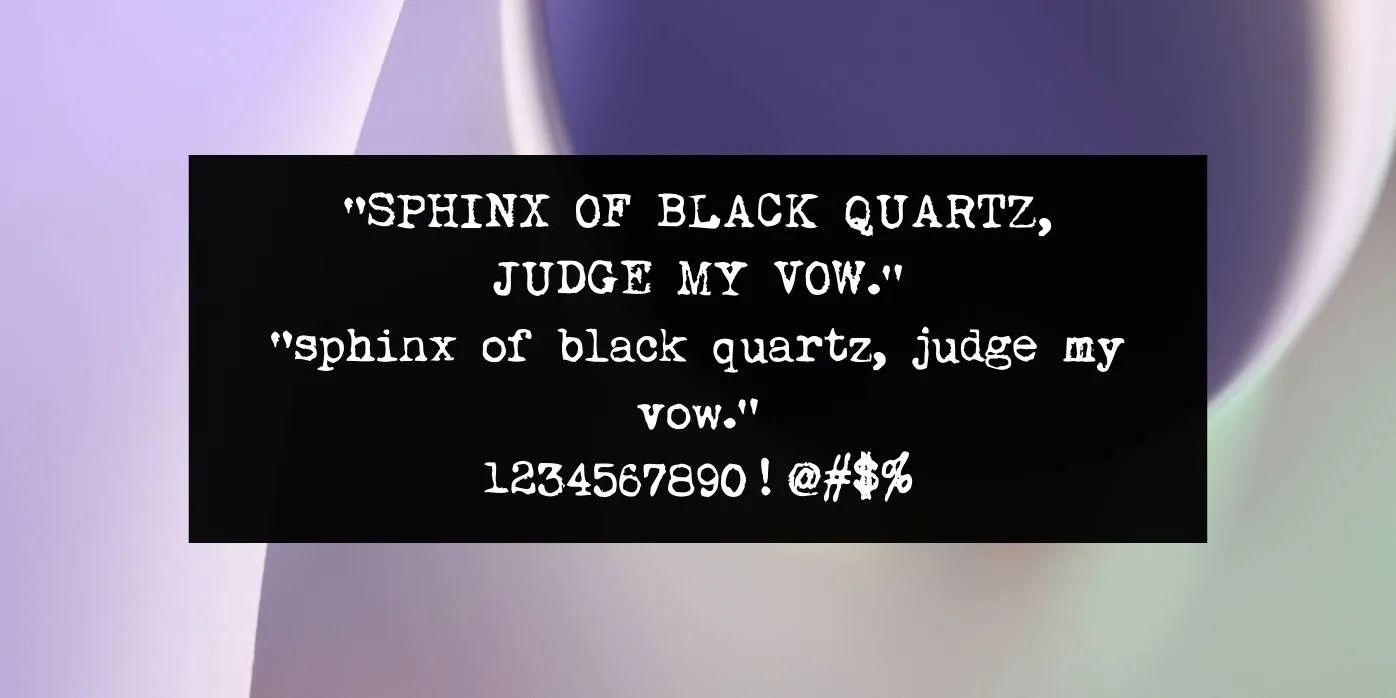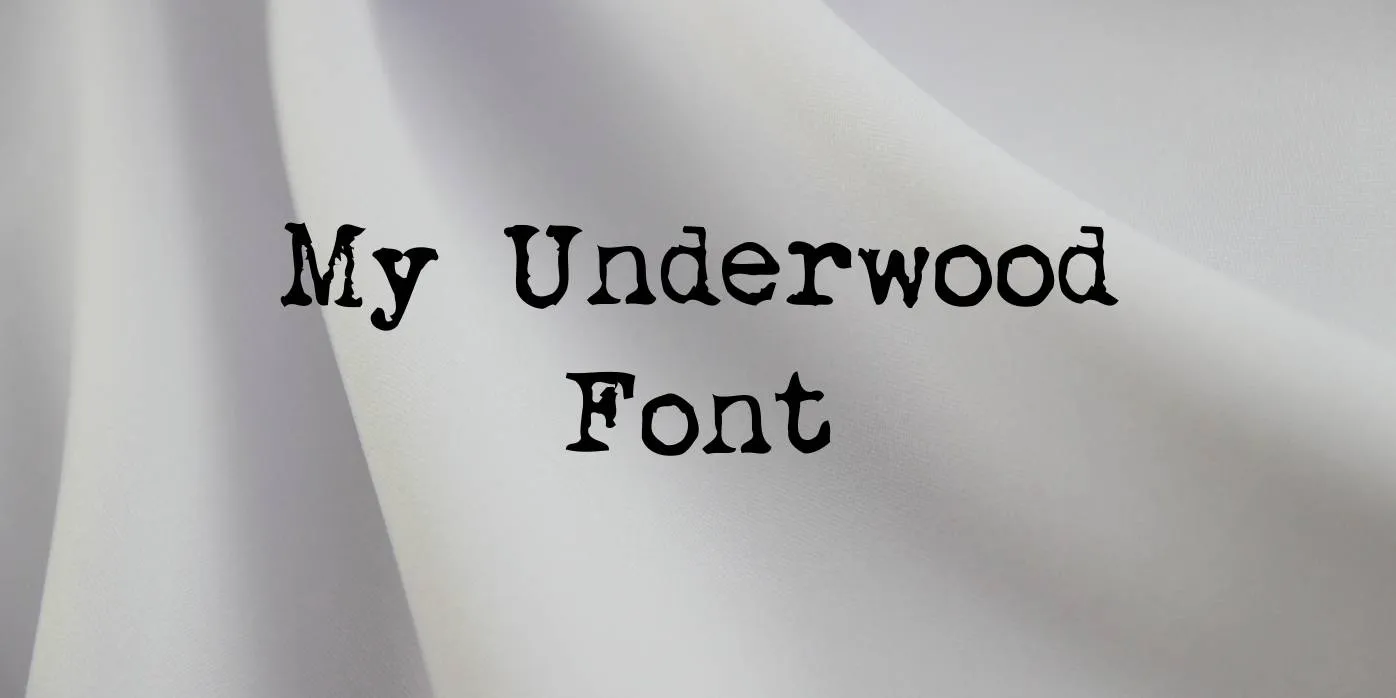
My Underwood Font
The My Underwood Font style may be an extraordinary choice to extend the unique quality. Even though the typography is conventional, the essential components are unusual. My Underwood is the unique text style for all your fun plans. The text style subfamily is regular.
You can use the My Underwood to make unique plans, covers, shop and store titles, and logos. Also, the My Underwood textual style is idealized for branding ventures, houseware plans, item bundling, or basically as an intelligent content overlay on any foundation image. To assess the typeface, in this segment there’s a see in which we select 31 uncommon characters or with highlights, 26 letters of the letter set in upper and lower case, and the numbering from 10. The letters will be the same after being introduced in your working framework, either for seeing or for printing.
Where I can use My Underwood text style? You can use the My Underwood to make curiously plans, covers, shop and store titles, and logos. Also, the My Underwood textual style is idealized for branding ventures. What type of My Underwood textual style?
My Underwood is the idealized textual style for all your fun plans. The text style subfamily is Regular.